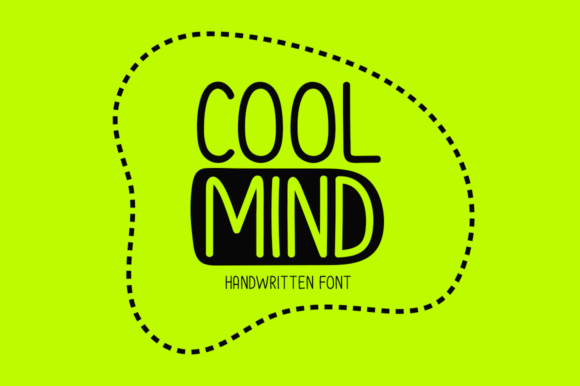
Welcome to the world of Cool Mind Font, a captivating handwritten script typeface that will infuse your creative projects with charm and personality. Experience the joy of crafting unique designs that radiate warmth and authenticity.
With Cool Mind Font, the possibilities are endless. Its elegant curves and distinctive characters bring an organic touch to your projects, making them stand out from the crowd. Whether you're a designer, artist, or content creator, Cool Mind Font is the perfect tool to add a personal touch to your work.
Unleash your creativity and embark on a typographic adventure with Cool Mind Font. Let your ideas flow freely as you explore the endless possibilities this font offers. From heartfelt letters and invitations to eye-catching logos and social media posts, Cool Mind Font is your trusty companion, transforming your words into captivating visual expressions.